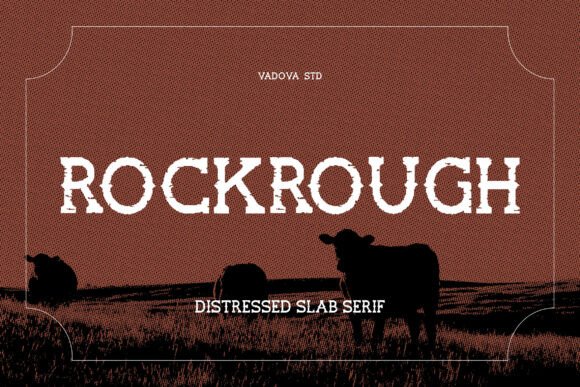
Rockrough Font: Rugged Slab Serif for Vintage Crafts
Using Rockrough Font for Farmhouse Signs and Rustic Decor
Rockrough is a bold slab serif font with a rugged, distressed style that evokes the charm of vintage Americana, making it an immediate favorite for creators focusing on farmhouse aesthetics and rustic home decor. When designing wooden signs, canvas prints, or welcome boards, this specific typeface provides the instant weathered texture that customers associate with authentic country living. As one of the most versatile display fonts available for this niche, Rockrough allows you to achieve a hand-painted, aged look without spending hours manually distressing vector letters in design software. For small shop owners selling physical signage at craft fairs or online marketplaces, the strong slab serifs ensure that text remains legible from a distance while maintaining that crucial artisanal feel.
The visual weight of Rockrough makes it particularly effective for large-format projects where readability is paramount. Unlike delicate scripts that can get lost on textured wood or rough linen, the sturdy construction of this slab serif holds its own against busy backgrounds. Crafters using Cricut or Silhouette machines will appreciate how the distressed edges cut cleanly on vinyl and heat transfer vinyl (HTV), provided the blade is sharp and the settings are adjusted for intricate cuts. This font family is ideal for farm-style branding because it bridges the gap between digital precision and handmade imperfection, giving your printable wall art and physical products a cohesive, professional yet cozy identity.
Creating Authentic Product Labels and Packaging with Rockrough
Fonts like Rockrough transform generic packaging into branded experiences, especially for makers selling candles, soaps, jams, or organic skincare. The rugged, distressed style communicates natural ingredients and small-batch quality before the customer even reads the product description. When designing labels for glass jars or kraft paper bags, Rockrough serves as a powerful anchor font that draws the eye to the product name or scent variety. Its bold slab serif structure pairs beautifully with simpler sans serif fonts for ingredient lists, ensuring that regulatory information remains clear while the brand name retains its vintage character.
For sellers on platforms like Etsy, perceived value is directly tied to presentation. Using a premium font like Rockrough signals that attention to detail extends beyond the product itself to every touchpoint of the unboxing experience. Whether you are printing adhesive labels at home or ordering professional packaging, the weathered textures inherent in this typeface add depth and tactile interest to flat designs. It is important to test print sizes carefully; while Rockrough is bold, the distressed elements can sometimes fill in at very small point sizes on standard inkjet printers. For product labels under two inches wide, consider using the font strictly for headlines and pairing it with a clean, high-contrast companion font for body text to maintain commercial-grade readability.
Designing Wedding Stationery and Invitations with Rockrough Font
Rockrough brings a unique, non-traditional elegance to wedding stationery suites, appealing to couples seeking a barn wedding, outdoor festival, or boho-chic aesthetic. While many wedding fonts lean toward flowing scripts, incorporating a bold slab serif font like Rockrough adds a modern, grounded contrast that prevents invitations from looking overly frilly or dated. This typeface works exceptionally well for save-the-dates, welcome signs, and seating charts where a touch of vintage Americana sets the tone for the celebration. The weathered texture suggests history and warmth, creating an emotional connection that polished, pristine serif fonts often lack.
When designing templates for sale or custom client work, versatility is key to maximizing return on investment. Rockrough allows you to create invitation suites that feel bespoke rather than mass-produced. Consider using this font for the couple’s names or the venue location to establish hierarchy, then pair it with a delicate handwritten font for dates and times. This combination balances masculine and feminine energies, broadening the appeal of your stationery designs. For digital downloads, providing mockups that showcase Rockrough on textured cardstock or recycled paper helps buyers visualize the final printed result, increasing conversion rates for your template listings.
Farmhouse Style Apparel and Merchandise Design Applications
Apparel creators and POD (Print on Demand) sellers rely on Fonts that translate well across different fabric colors and garment styles, and Rockrough excels in this arena. The bold slab serif construction ensures that designs pop on both dark and light t-shirts, tote bags, and aprons. Because the font already includes built-in distressing, it mimics the look of vintage screen printing or worn-in embroidery, which is highly desirable in the current fashion market. This eliminates the need for post-processing effects to make new merchandise look authentically retro, streamlining your design workflow.
For those selling SVG files to other crafters, Rockrough offers significant commercial potential. Makers searching for "farmhouse shirt svg" or "vintage truck tee design" are specifically looking for typography that carries this exact rugged aesthetic. When creating these assets, ensure that the letter spacing is optimized for cutting machines; slightly increasing the kerning can prevent the distressed internal details from tearing during the weeding process. Always verify the licensing terms included with Rockrough to confirm whether you can sell end products featuring the font, embed it in editable templates, or distribute modified SVG versions. Understanding these commercial rights protects your business and ensures you can confidently market your apparel designs to a wider audience.
Pairing Rockrough with Script and Sans Serif Fonts for Balance
Effective font pairing is essential when working with a dominant display typeface like Rockrough, as its strong personality requires supportive companions rather than competitors. Since Rockrough is a bold slab serif font with significant visual texture, it pairs best with clean, minimalist sans serif fonts or fluid, organic script fonts. Avoid combining it with other distressed or grunge fonts, as this creates visual noise and reduces legibility. Instead, let Rockrough handle the heavy lifting for titles and headers while a simple geometric sans serif manages subheaders and functional text. This contrast highlights the vintage charm of the slab serif without overwhelming the viewer.
For greeting cards and social media graphics, try pairing Rockrough with a monoline script or a casual brush font. The rigidity of the slab serifs provides a stable framework that makes the looser script feel more intentional and less chaotic. This technique is particularly useful for seasonal designs, such as autumn harvest announcements or holiday gift tags, where you want to convey festivity without sacrificing brand consistency. When designing for digital platforms, remember that screens render textures differently than print. Test your font combinations at various zoom levels to ensure the distressed details of Rockrough do not appear pixelated or muddy on mobile devices, maintaining a crisp, professional appearance across all customer touchpoints.
Beyond legalities, best practices for using Rockrough commercially involve optimizing files for production reliability. When creating cut files, convert text to outlines to prevent font substitution issues if the buyer does not own Rockrough. For print-on-demand integration, export designs at high resolution (300 DPI minimum) to preserve the integrity of the weathered textures. Document your design choices in product descriptions; explaining that you used a "rugged vintage slab serif" helps customers understand the aesthetic value they are purchasing. By treating Rockrough as a strategic business asset rather than just a decorative element, you elevate the quality of your offerings and build a recognizable, trustworthy brand identity in the competitive handmade marketplace.